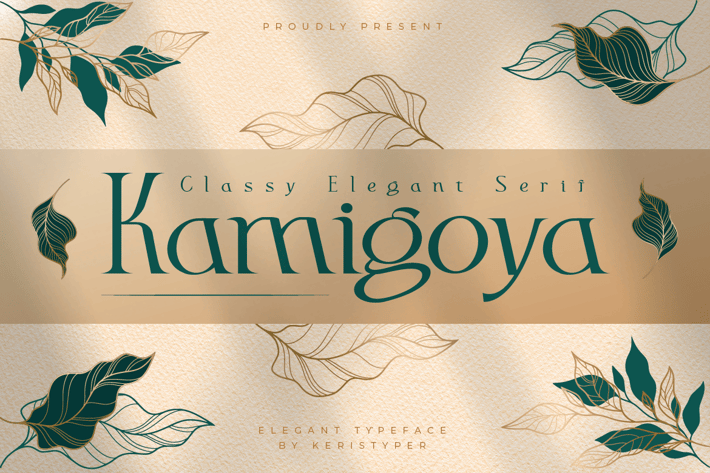
Kamigoya Font
Kamigoya is a classy font with visual elegance, and smooth curves, making your work look true and attractive. This font is good for logo design, Social media, Movie Titles, Books Titles, short text even long text letters, and good for your secondary text font with sans or serif.
Standard Uppercase & Lowercase
Multilingual : ä ö ü Ä Ö Ü ß ¿ ¡
Alternate & Ligature